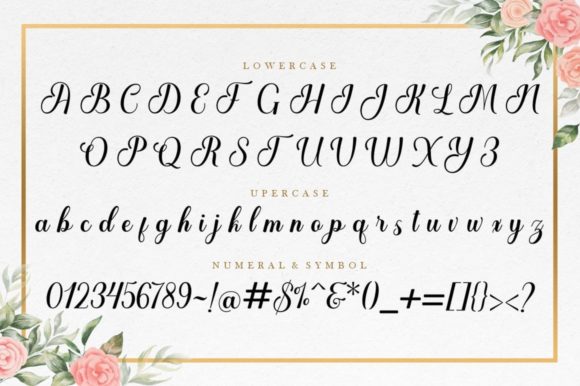
Delania Font
Delania is a sweet and simple script font with elegant swashes that will make any of your designs extra gorgeous. It will look stunning on wedding invitations, greeting cards, or even logos.